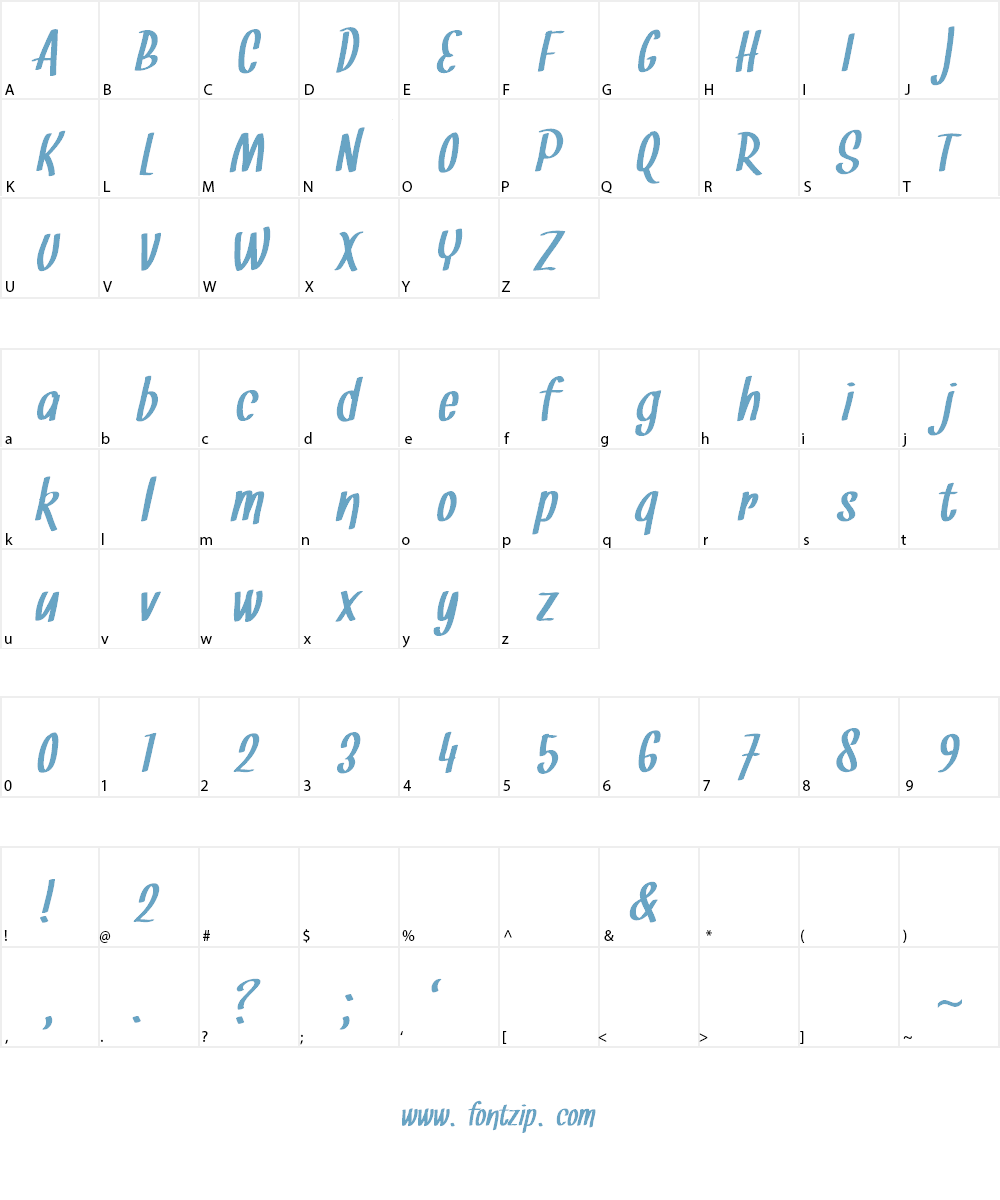
...and another font made in one night. Looks like the kind of font a shopkeeper would make with a marker to sell smelly fish and stale bread. I noticed 'Beter Bed', a dutch furniture maker uses this on all its folders.